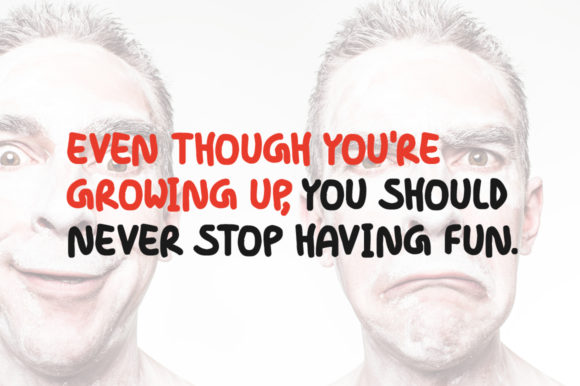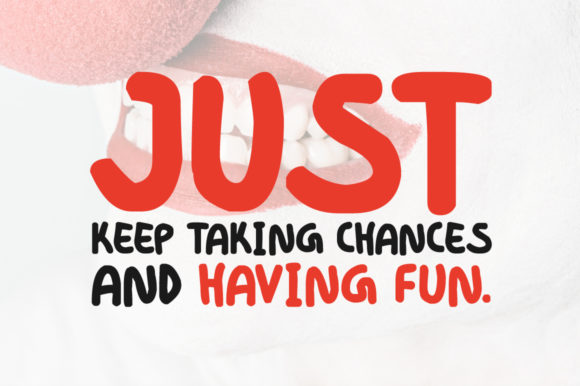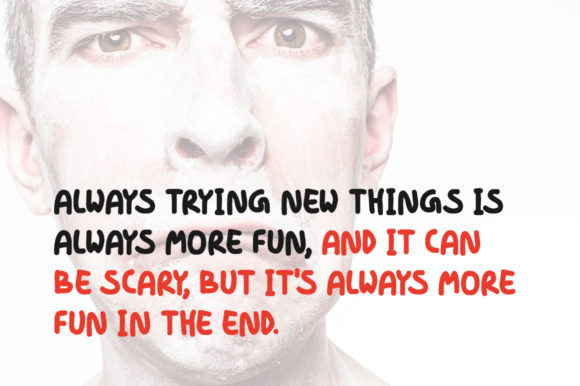
Introduction to Really Funny Font
The Really Funny is a striking font.
Its bold letters with a great readability make sure your designs will stand out .
Key Features of Really Funny Font
Why Choose Really Funny Font?
Really Funny Font offers exceptional quality and versatility, making it a valuable addition to your design toolkit. Whether you’re creating for personal projects or commercial use, Really Funny Font delivers professional results.